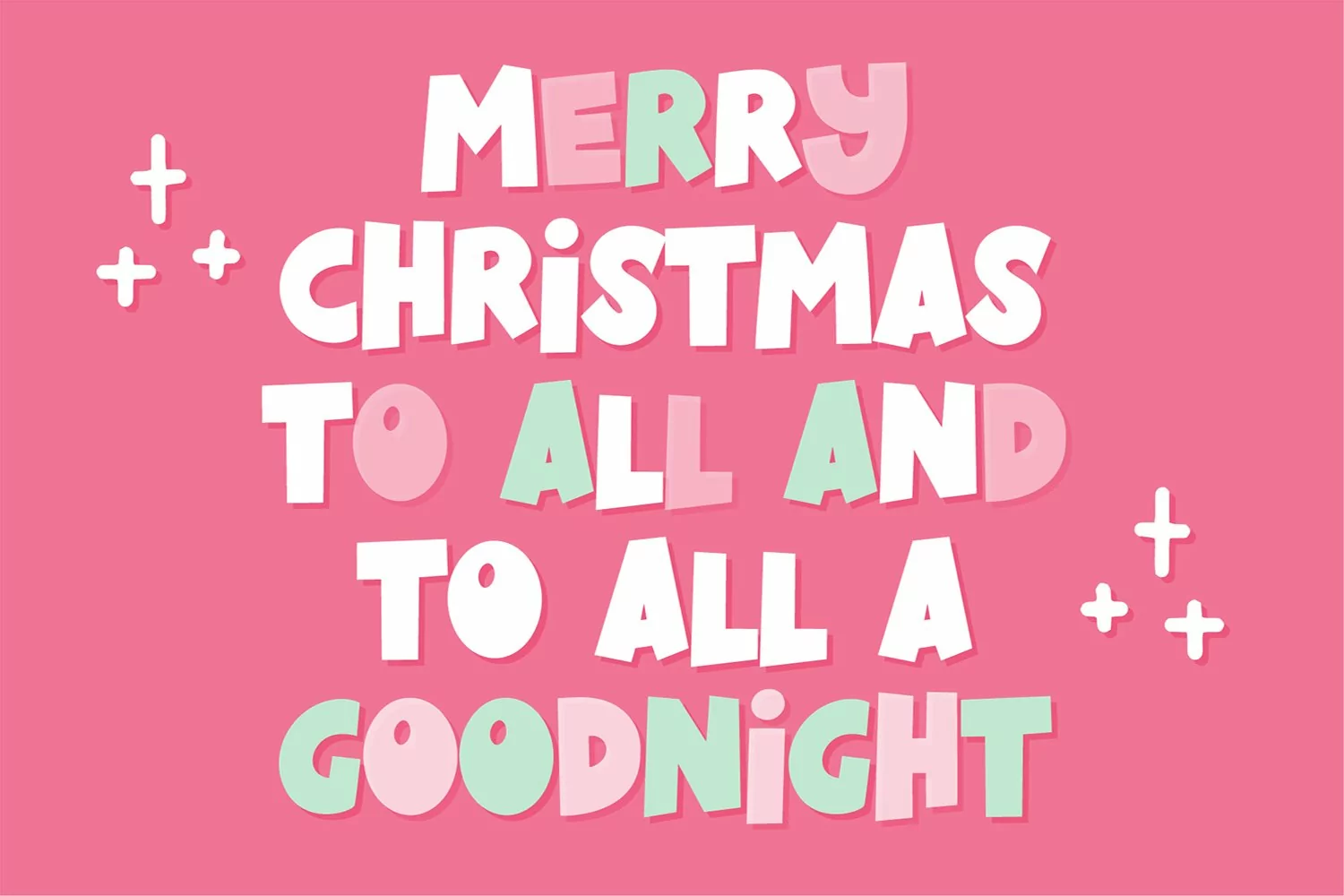
"Holiday Sparkle" a Christmas script font
Holiday Sparkle is perfect for your holiday projects. Use it for Christmas cards, winter crafts for decor and more! This font includes numbers, basic punctuation and intl characters!